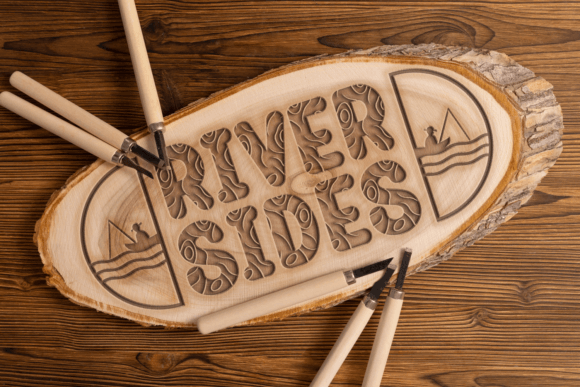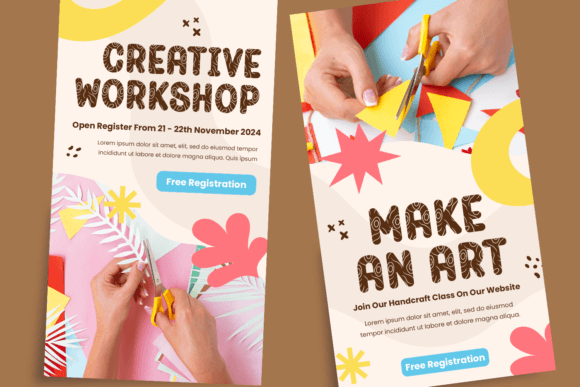
Wood Bank Font
Engage your senses with the Wood Bank Font; an aesthetic masterpiece in typographic design that imitates the natural rhythm of wood and its unique grain pattern. Indulge in a sea of creativity with this distinctively crafted font that embodies a balance of wooden touch with a carved flair, making it an artisanal choice for graphic designers. This high-quality typography offers a natural backdrop for digital design, pulling from the harmony of nature to offer you a visual feast.
Delving into an earth-toned aesthetic appeal, Wood Bank Font merges the realm of professional and artistic fonts. This captivating, custom-crafted font imparts authenticity, all while exuding an elegant sophistication. For design enthusiasts seeking inventive, unique fonts, Wood Bank Font is a handmade delight – a confluence of graphic art and nature-inspired nuances.
Experience the delicately vintage essence rendered in each typeface, a testament to its skillful crafting. As a highlight of natural font design, Wood Bank Font emerges as an ode to wood grain textured fonts. This serves as an artistic tribute to font aesthetics, setting your creativity in motion with design masterpieces anchored in authenticity, elegance, and nature’s inspiration.